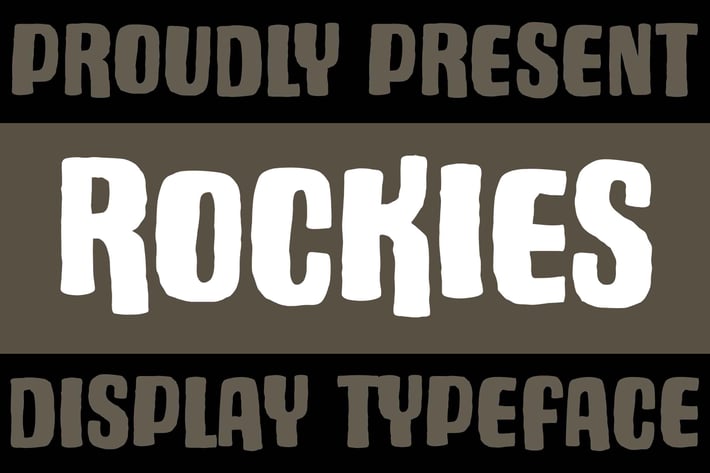
Rockies Rough Font
Rockies is a rough display font. Whether youβre looking for fonts for Instagram or calligraphy scripts for DIY projects, Rockies will turn any creative idea into a true piece of art!